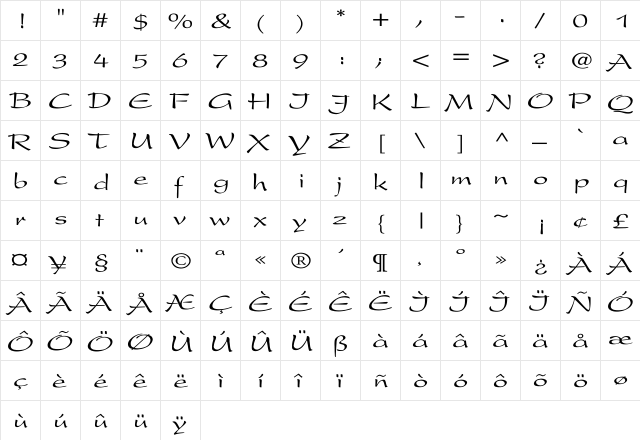
Present Wd Regular
Design Context for Present Wd Typeface
Present Wd offers clean, dependable letterforms without strong stylistic allegiance, making it a practical choice for designers who need flexibility.
Pro Tip: Use Present Wd in both headline and body roles to test its range before committing to a single application.